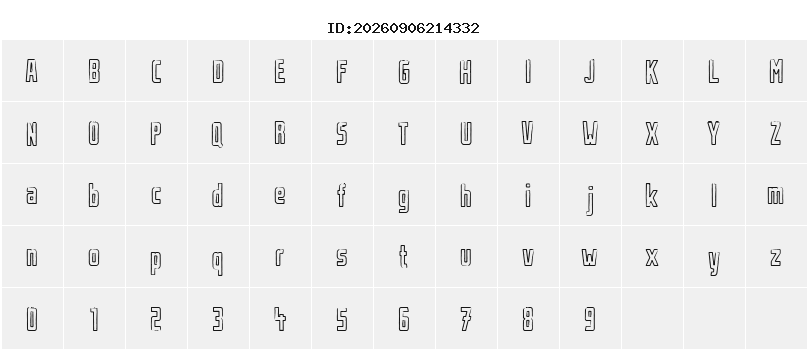
• Font Name: Urban Rubber
• Full Font Name: Urban Rubber
• Designer: Nils von Blanc
• Manufacturer: Urban Rubber is a modified Font by "www.nils-von-Blanc.de" 2008. I modfied the following Sets: Commressed, Outline, Stripes, College. The original Stahlbeton Font was created by "Patric Schwarz/www.neuefabrik.de" 2007.
About Urban Rubber.ttf
Urban Rubber.ttf is a modern, elegant sans-serif font designed for ultimate readability and visual harmony. Perfect for branding, headlines, web design, and print materials.